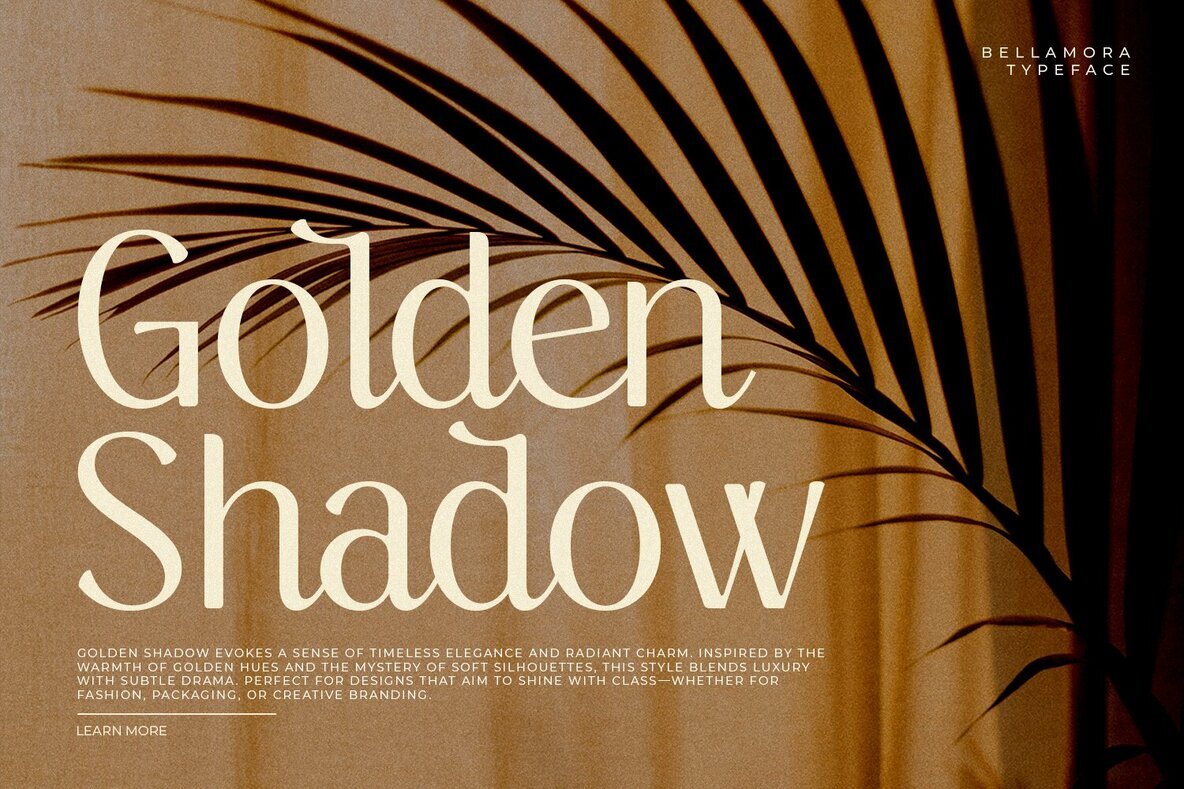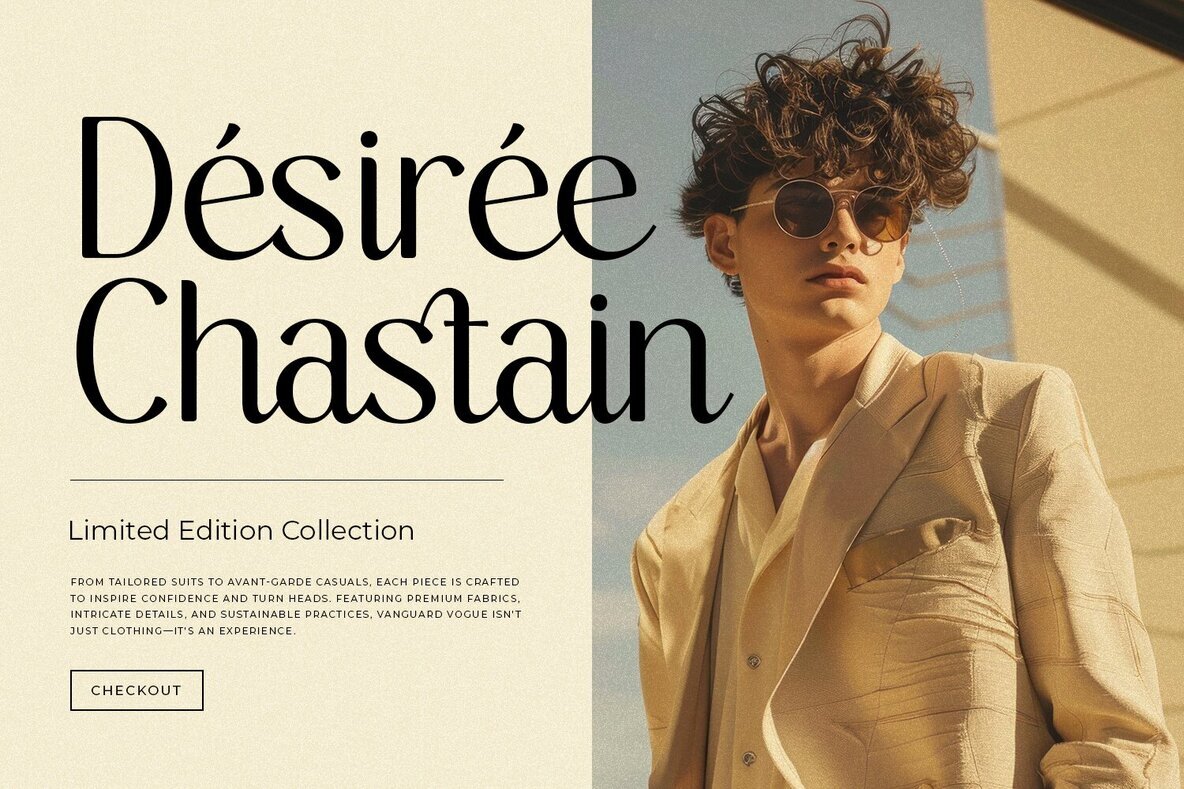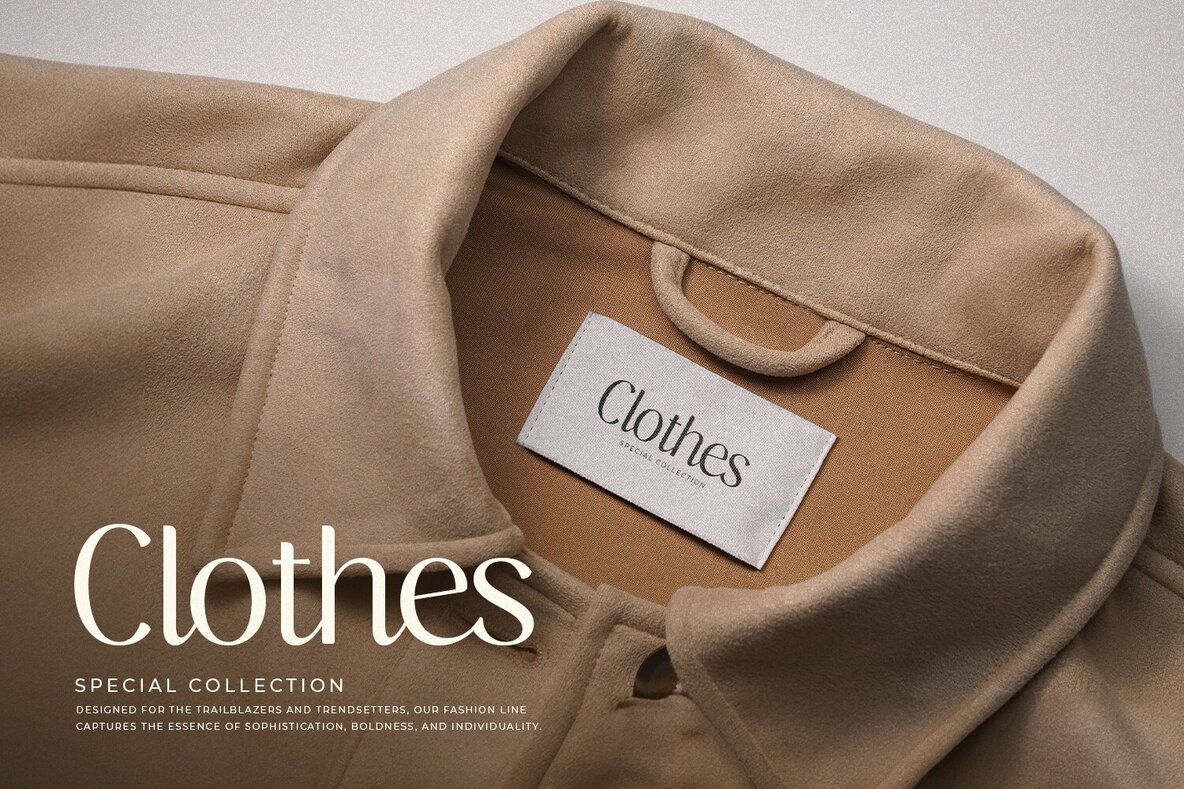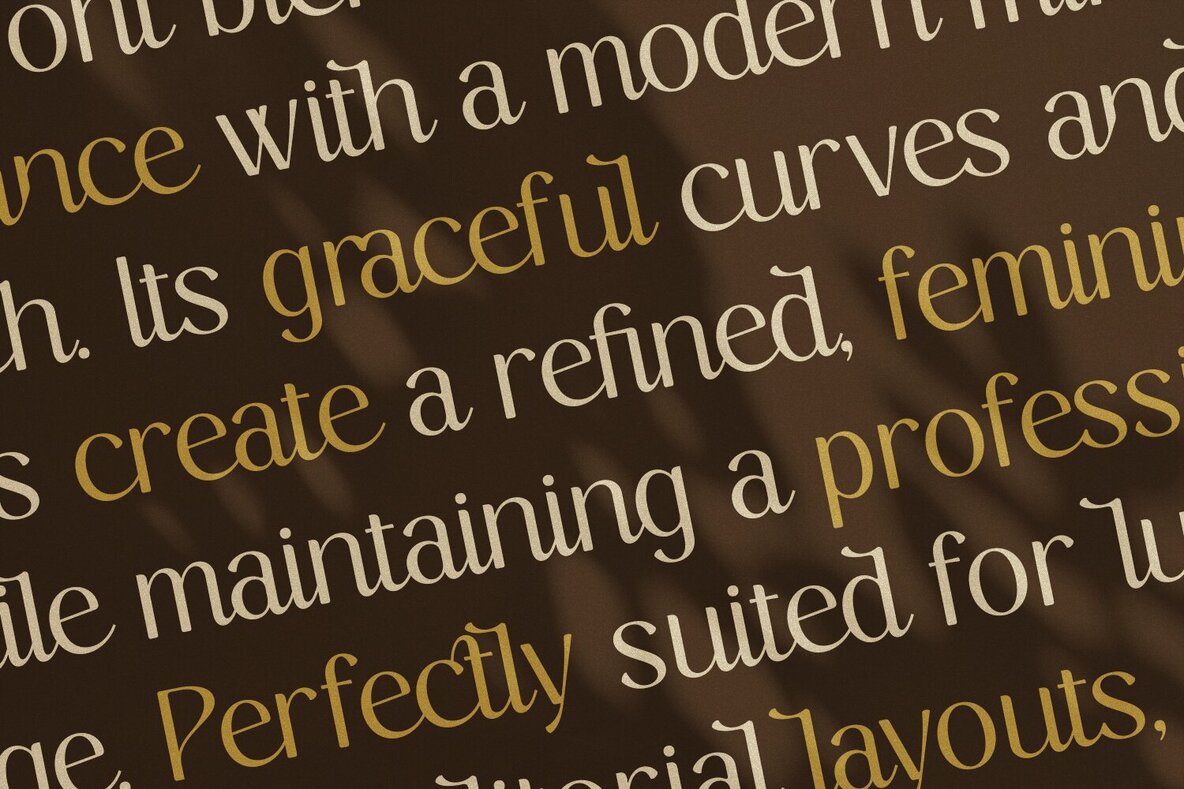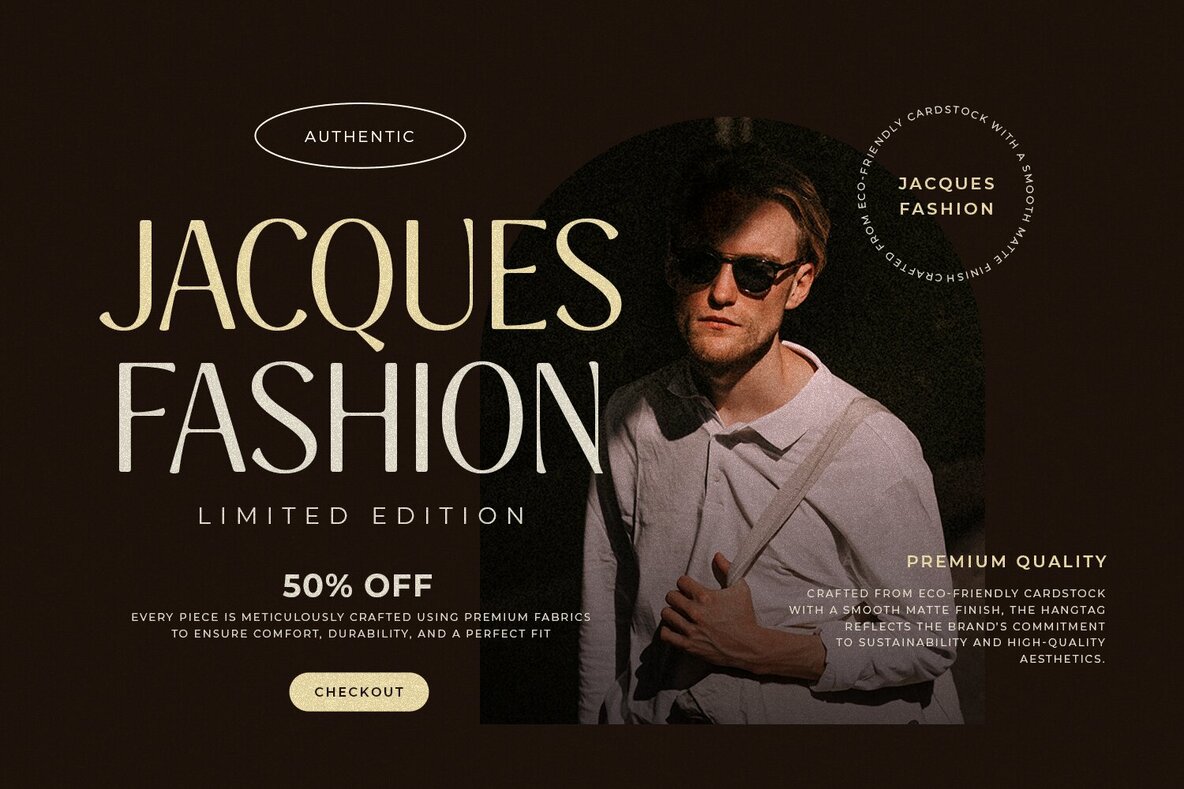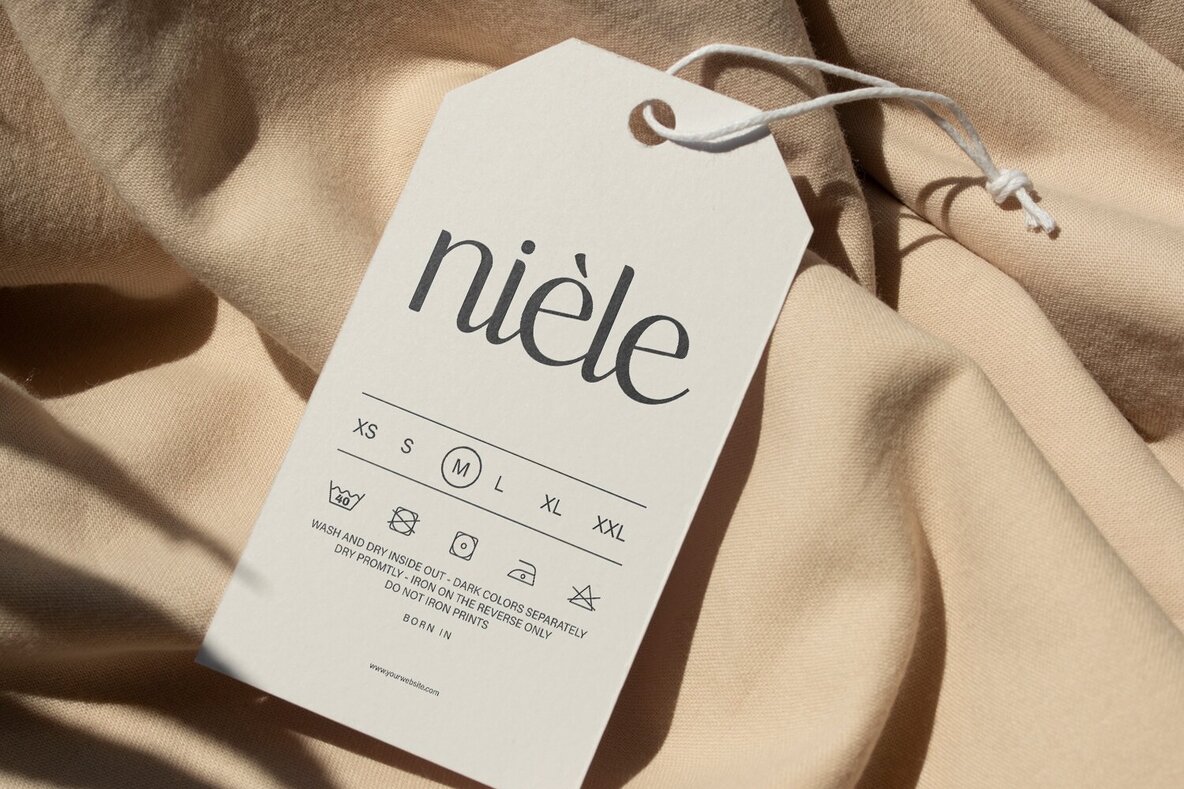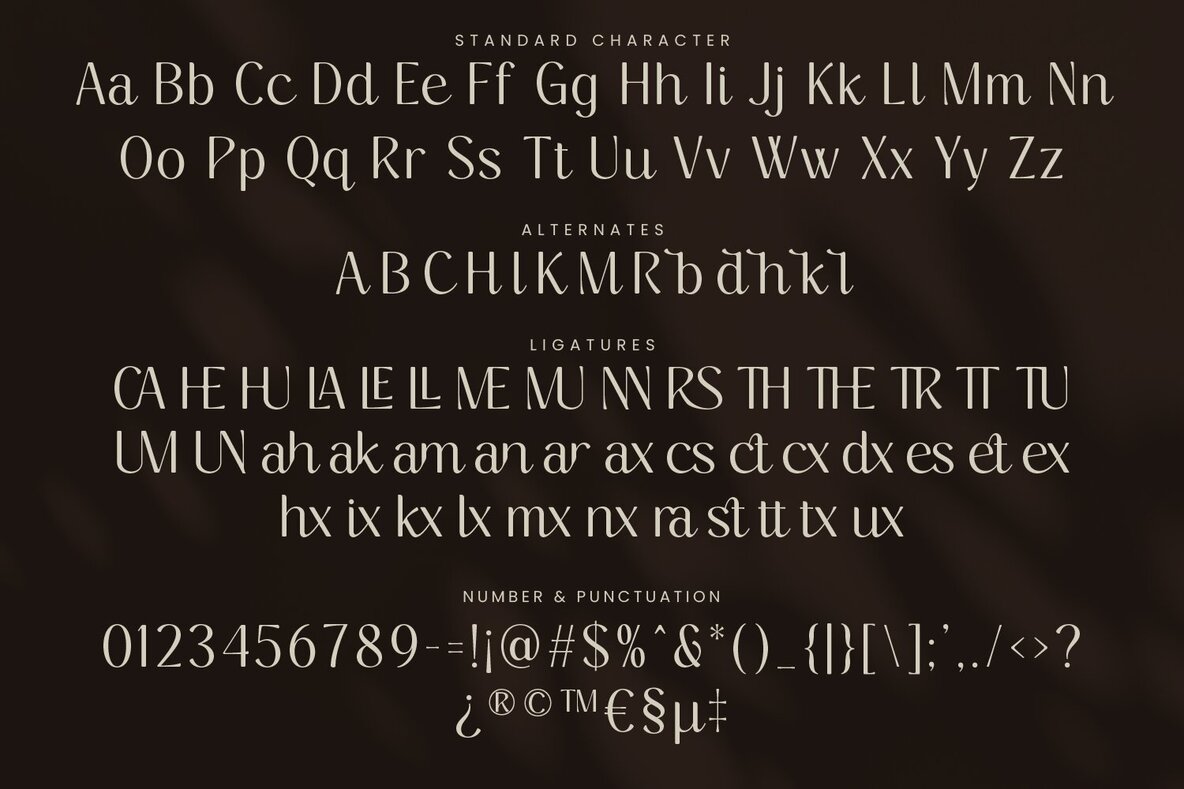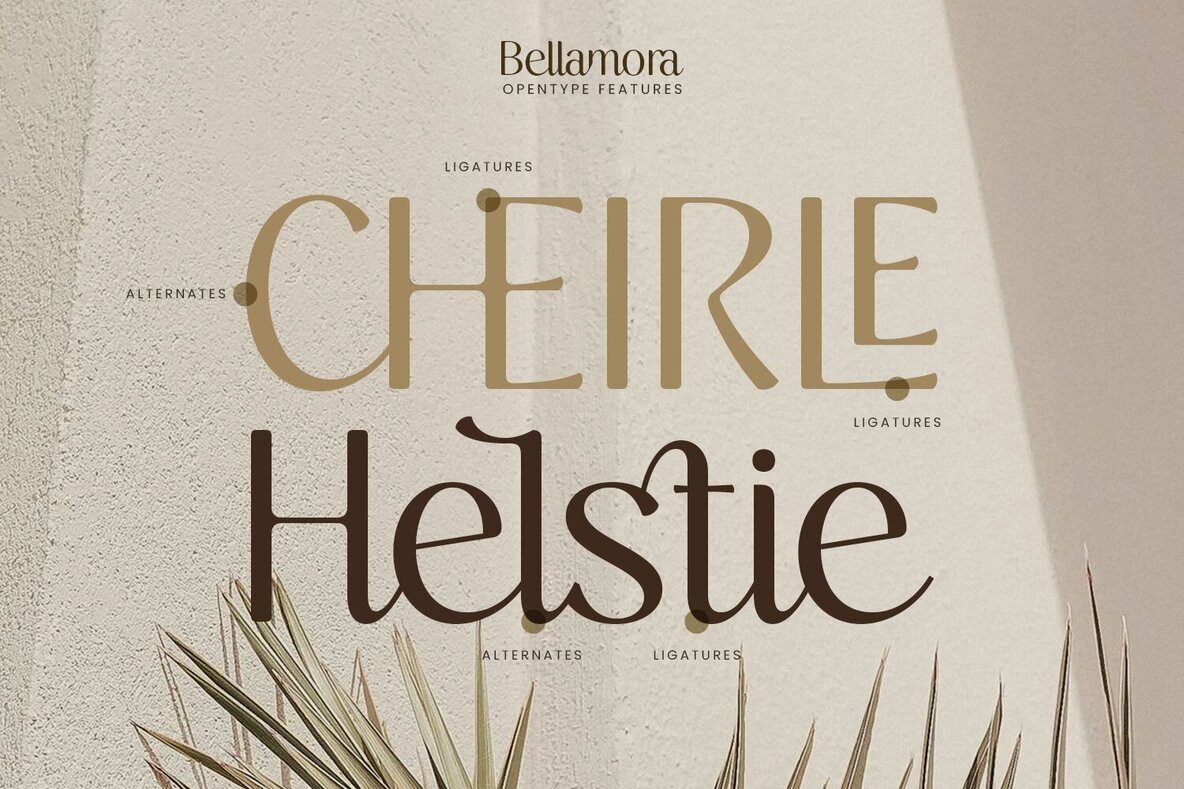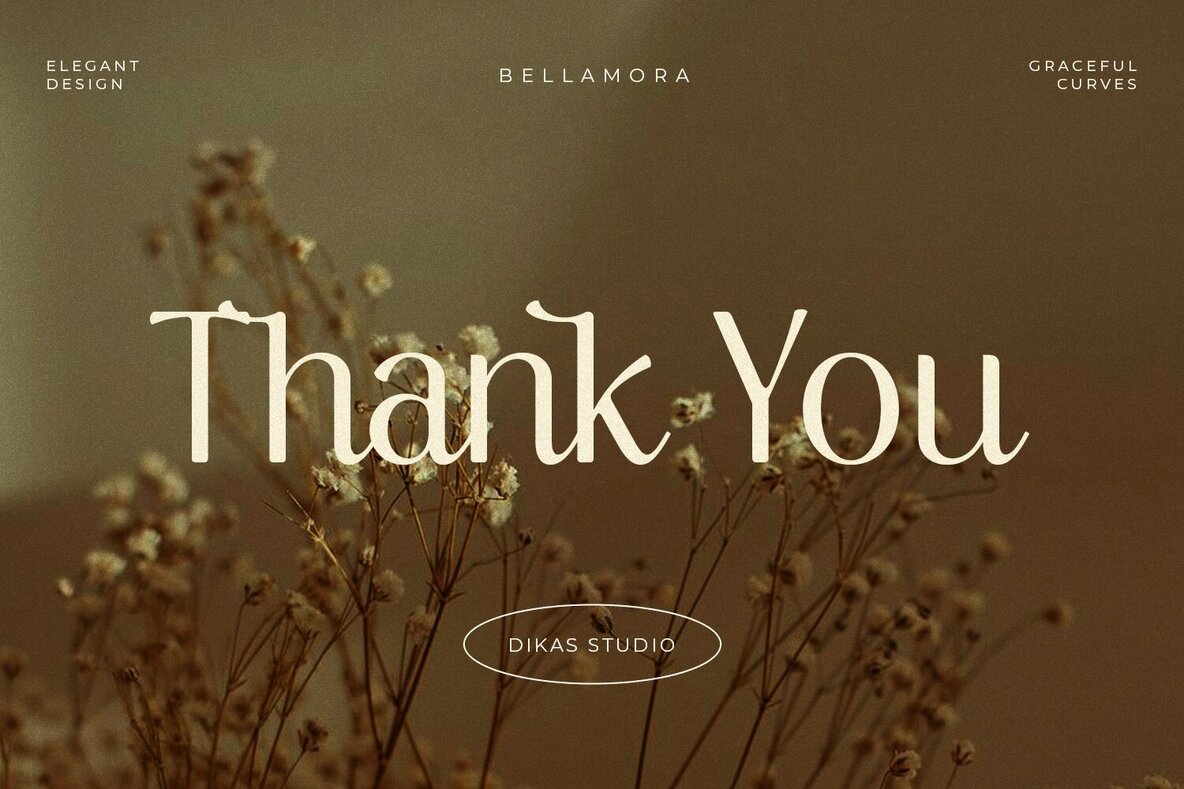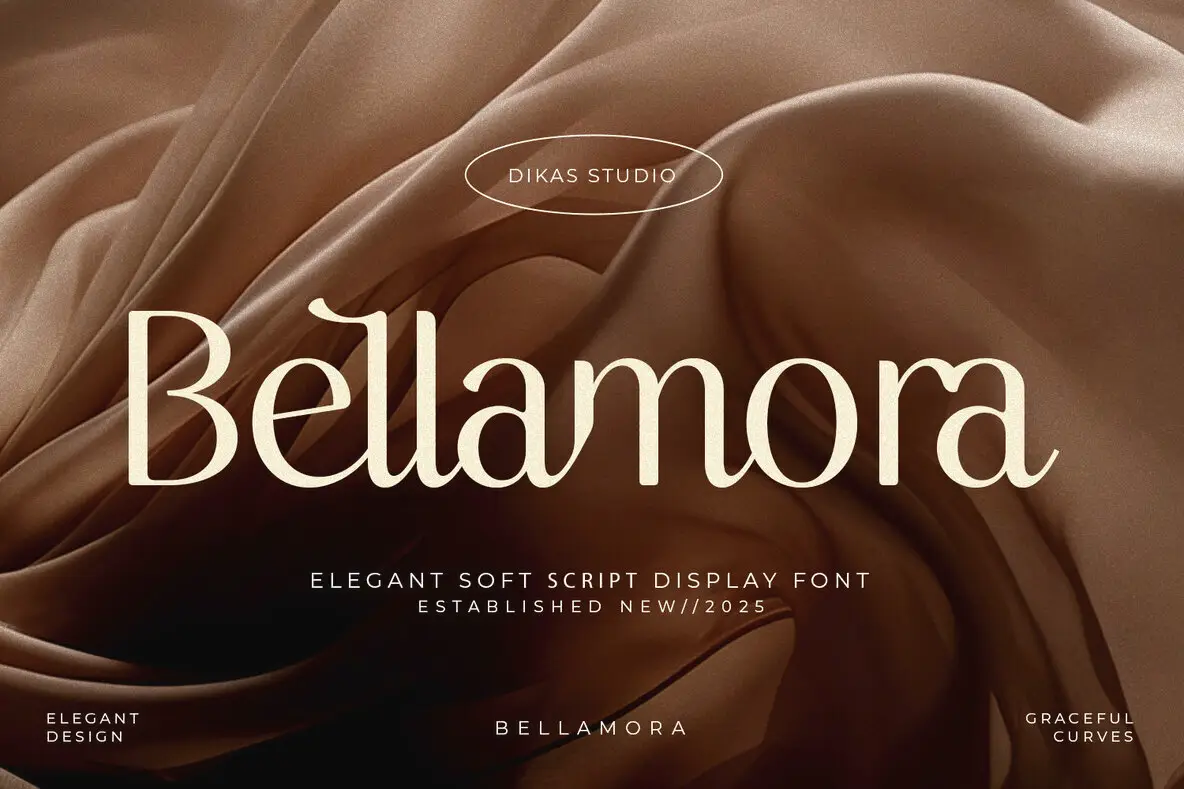
Bellamora Font
Bellamora Regular
Bellamora is a beautifully crafted script font that exudes elegance, charm, and aesthetic appeal. With a wide range of alternate characters and refined ligatures, Bellamora gives you the creative flexibility to design with personality and grace. Perfect for luxury branding, editorial headlines, wedding invitations, or any project that calls for a touch of beauty and sophistication.